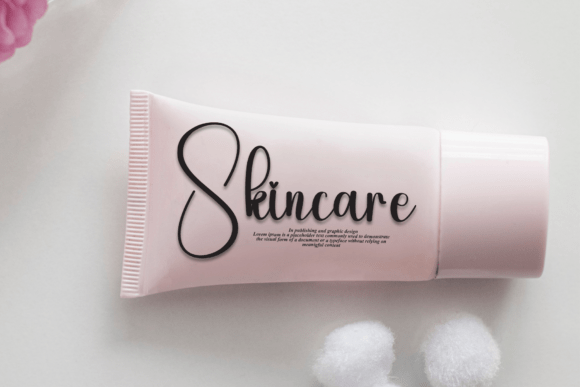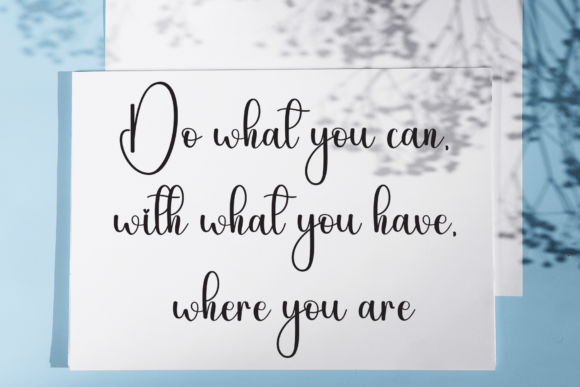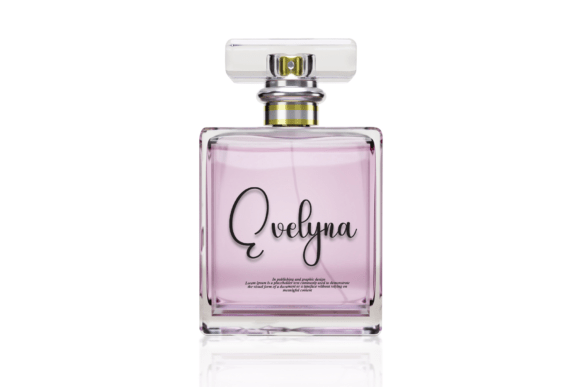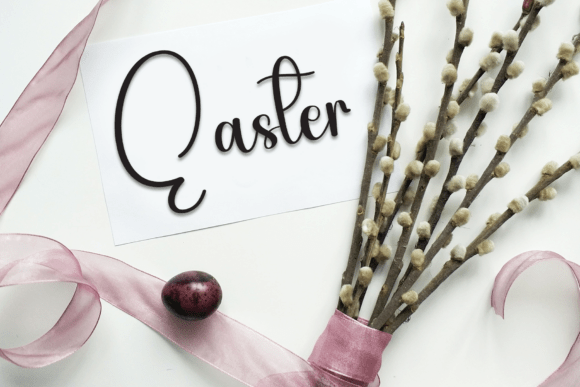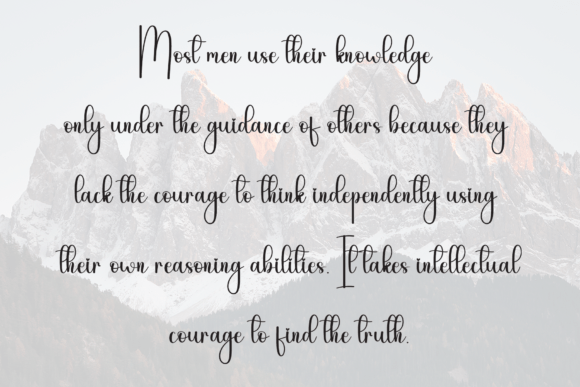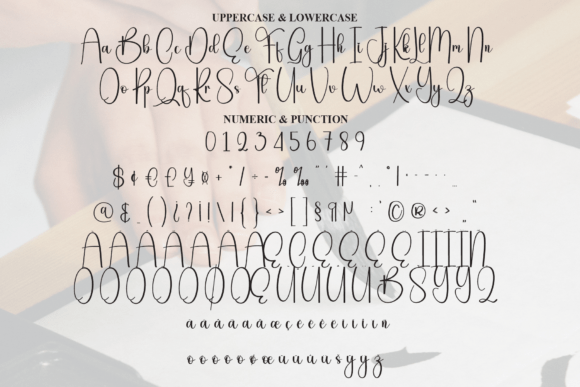
The Art of Elegant Expression: Unleashing the Beauty of Calligraphy Font
Have you ever found yourself scribbling down a handwritten note or a quick sketch in a notebook, only to be transported to a world of creativity and inspiration? That’s the magic of the written word, and it’s exactly what the Calligraphy Font aims to capture. This stylish handwritten script font is more than just a typeface – it’s an expression of elegance, sophistication, and personal touch.
As a designer, you know the importance of selecting the right font to elevate your project. That’s where the Calligraphy Font comes in – a versatile and creative solution for logos, packaging, and invitations. Its fluid strokes and charming curves bring warmth and personality to any design, making it a valuable addition to any designer’s toolkit.
Calligraphy Font Key Features
- Unique Characteristics: Features elegant, flowing connections between letters, with subtle variations in stroke width and style to create a natural, handwritten feel.
- Letterforms: Includes a wide range of letterforms, including ligatures, swashes, and flourishes, to add visual interest and personality to text.
Calligraphy Font Review
Overall, I’m quite impressed with the Calligraphy Font. It’s a beautiful and elegant font that’s perfect for creating a sophisticated and luxurious feel in your designs. ✨
- Beautifully crafted lettering with subtle flourishes and connections
- Works well for titles, headings, and other high-impact text
- Can add a touch of sophistication to your designs
- Available in a range of weights and styles
However, I do have a few concerns with the Calligraphy Font. ✨
- Can be difficult to read in smaller sizes or at a distance
- May not be suitable for body text or large blocks of text
- Can be quite ornate, which may not be suitable for all designs
- May not be compatible with all font rendering engines
Overall, I think the Calligraphy Font is a great choice for designers who want to add a touch of elegance and sophistication to their designs. While it may have some limitations, it’s a beautiful font that’s perfect for high-impact text and titles.
Practical Application Guide for Calligraphy Font
Use calligraphy fonts to add a touch of elegance to your designs.
Experiment with different font sizes and styles to achieve the desired effect.
Use calligraphy fonts in combination with other design elements to create a cohesive look.
Special occasion cards and gift tags.
Branding and marketing materials.
Alternatives to Calligraphy Font for Designers
Lobster is a popular script font that resembles handwriting. It’s ideal for use in headings, titles, and any design element where a personal touch is desired. Lobster is a great alternative to Calligraphy Font when you need a more modern and elegant look.
Comparison: While both fonts are script-based, Lobster has a more modern and sleek feel, whereas Calligraphy Font has a more traditional and vintage vibe.
Carolyna Pro is a modern script font that’s perfect for use in branding, advertising, and editorial design. It’s a great choice when you need a font that’s both elegant and sophisticated. Carolyna Pro is a better option than Calligraphy Font when you want a more refined and polished look.
Comparison: Carolyna Pro has a more refined and modern feel compared to Calligraphy Font, which can sometimes appear too ornate or over-the-top.
Pacifico is a beautiful script font that’s inspired by the Pacific coastline. It’s ideal for use in designs where a relaxed and casual feel is desired. Pacifico is a great alternative to Calligraphy Font when you need a font that’s both elegant and laid-back.